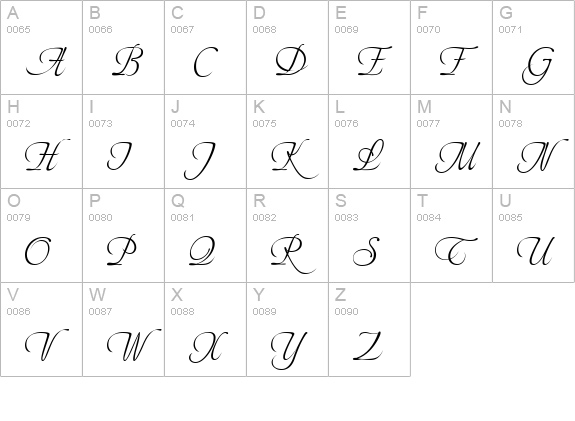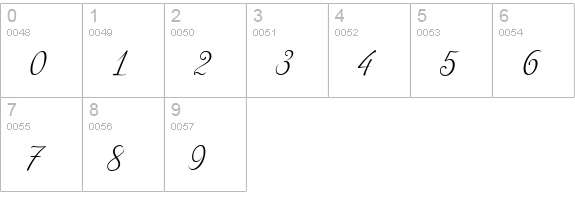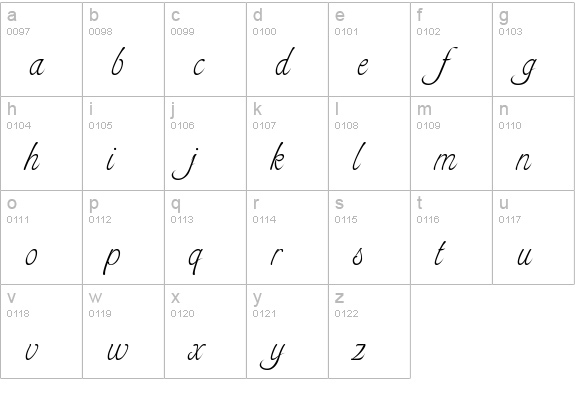
MarnieRegular Font Details
MarnieRegular font is a stunning typeface that effortlessly combines elegance and simplicity. With its clean lines and graceful curves, this font exudes a sense of modernity while maintaining a timeless appeal. Its versatility makes it perfect for a wide range of design projects, from logos and branding to advertisements and website headers. One of the best things about MarnieRegular font is that it is available for free. Yes, you read that right. This incredible font can be freely downloaded at FontsMarket.com, a reputable online platform for fonts. Whether you are a professional designer or a hobbyist, you can access this font without any cost, making it a valuable addition to your font collection. MarnieRegular font offers a wide range of weights and styles, allowing you to play with different variations and create unique and eye-catching designs. From the light and airy Thin style to the bold and impactful Black style, this font has it all. The carefully crafted letterforms ensure excellent legibility, even at smaller sizes, so your message will always be clear and easy to read. The versatility of MarnieRegular font extends beyond its various styles. It supports multiple languages, making it suitable for global projects. Whether you need to design a website in English, Spanish, French, or any other language, this font has you covered. Moreover, MarnieRegular font is optimized for both print and digital use. Its high-quality outlines ensure crisp and sharp rendering, whether you are printing it on paper or displaying it on a screen. You can rely on this font to deliver outstanding results in any medium. In conclusion, MarnieRegular font is a must-have for designers seeking a beautiful and versatile typeface. Its combination of elegance and simplicity, along with its range of styles and language support, makes it perfect for a wide variety of design projects. And the best part? It is freely available to download at FontsMarket.com. So why wait? Enhance your designs with the exquisite MarnieRegular font today!